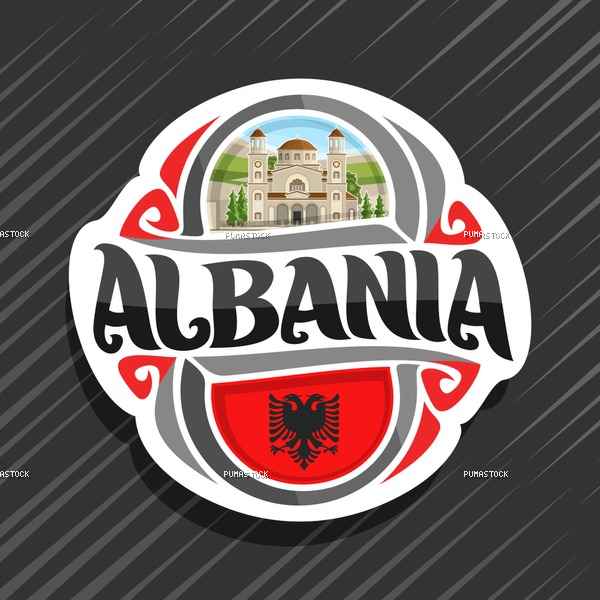
Logo for Albania country, fridge magnet with albanian state flag, original brush typeface for word albania and national albanian symbol - Saint Demetrius Cathedral in Berat on nature background